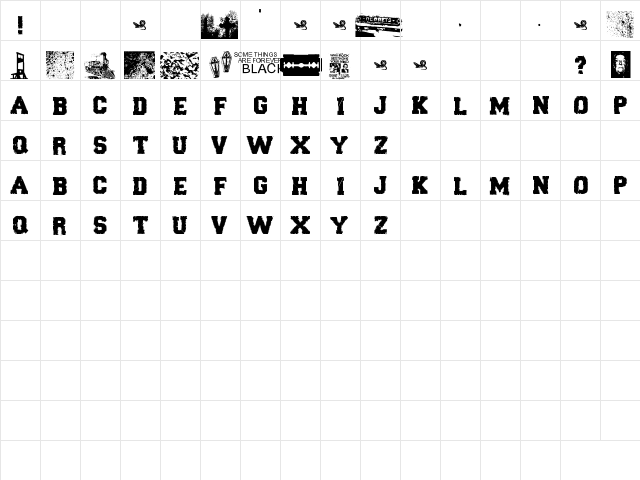
Forever Black Regular
| Designer | The Wondermaker |
Design Context for Forever Black Typeface
Forever Black is a composed and adaptable typeface that performs quietly and consistently across a wide range of design contexts.